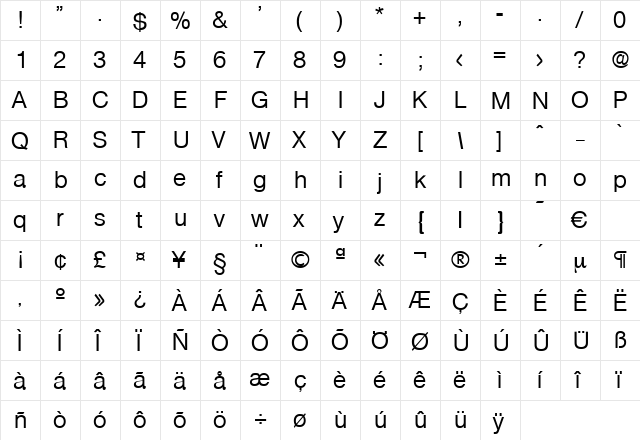
Olympia-Medium Regular
Design Context for Olympia-Medium Typeface
Olympia-Medium offers clean, dependable letterforms without strong stylistic allegiance, making it a practical choice for designers who need flexibility.